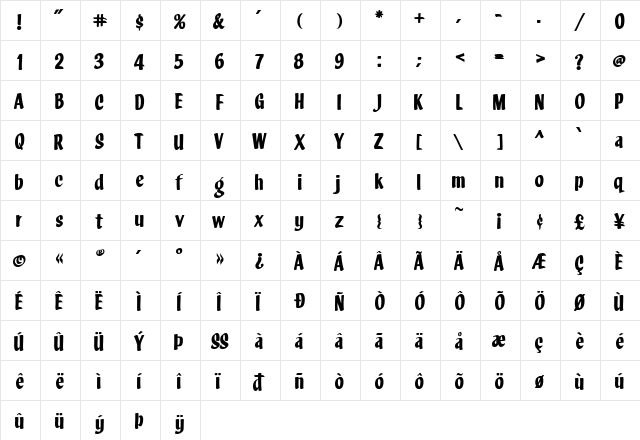
LHF Anna Banana Regular
Design Context for LHF Anna Banana Typeface
LHF Anna Banana is a composed and adaptable typeface that performs quietly and consistently across a wide range of design contexts.
Pro Tip: Use LHF Anna Banana in both headline and body roles to test its range before committing to a single application.